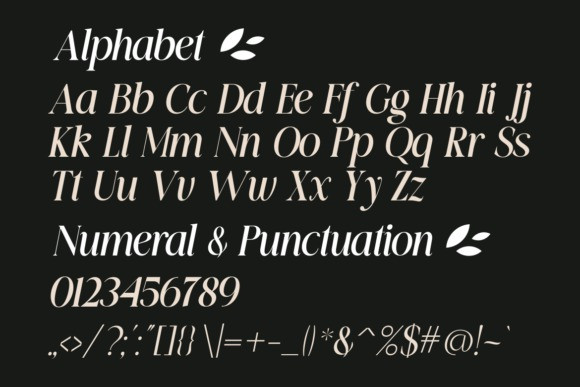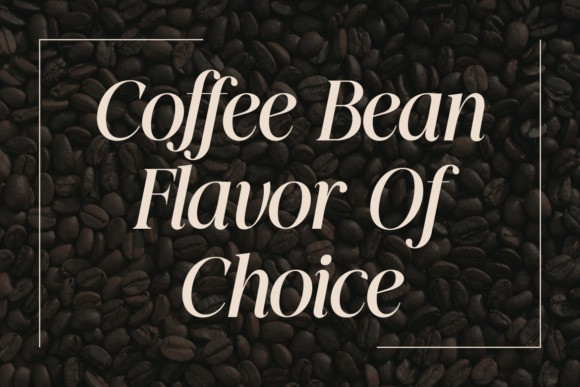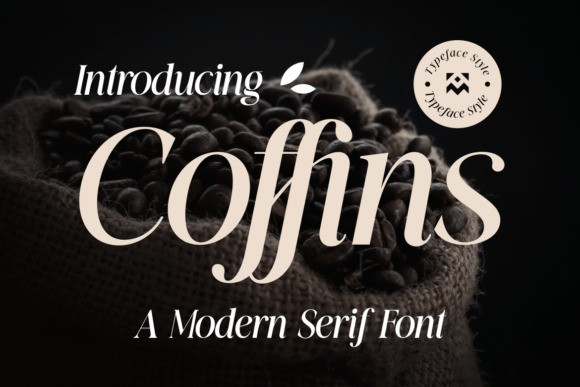
Coffins Font
Coffins Font is a stylish font that adds a touch of mischief and uniqueness to any project. Its irregular lines and whimsical curves create a fun and adventurous vibe, making it perfect for Halloween-themed designs, spooky invitations, and creative craft projects. Embrace the quirky charm of Coffins and bring a dose of fun to your creations.